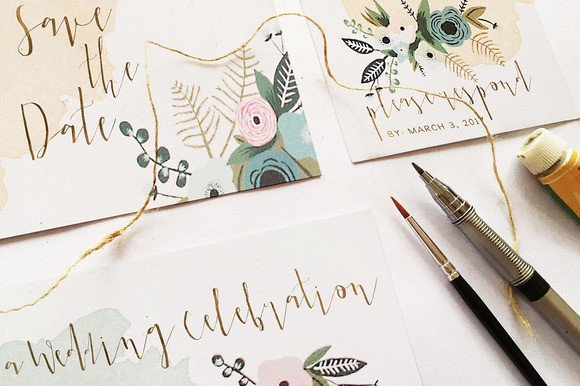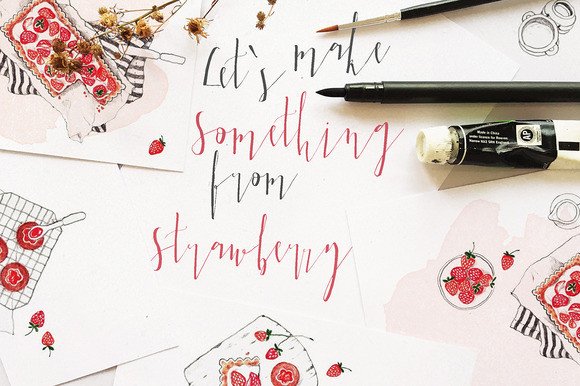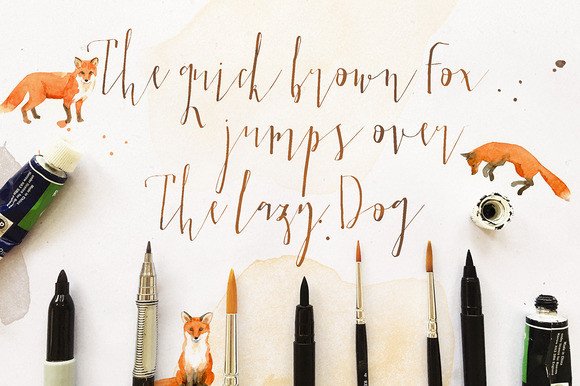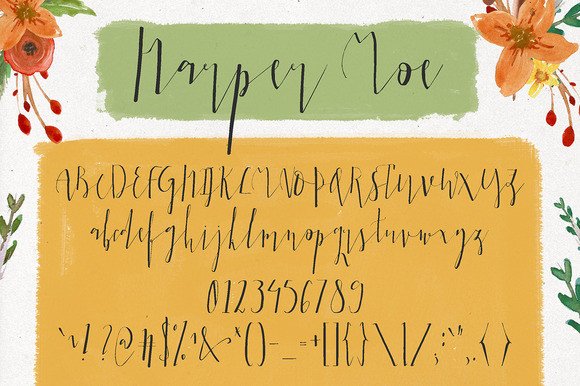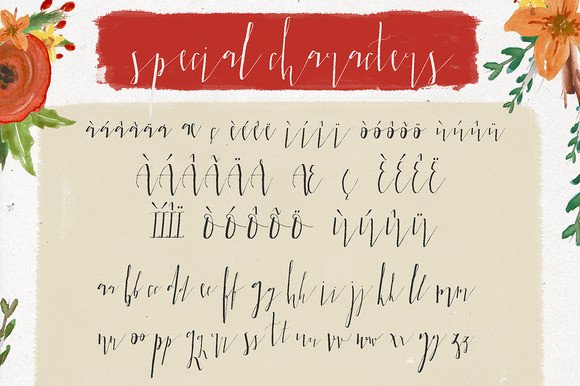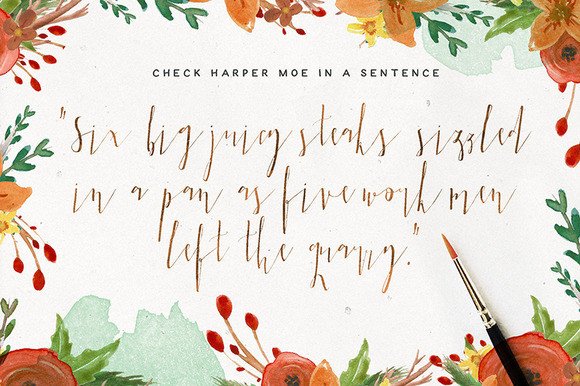
Introducing Harper Moe Font: The Perfect Addition to Your Design Arsenal
Are you a designer or crafter looking for a unique and elegant font to elevate your creative projects? Look no further than Harper Moe Font, a beautiful feminine script font that is sure to capture the hearts of anyone who lays eyes on it. In this article, we’ll dive into the world of Harper Moe Font, exploring its features, uses, and benefits, and why it’s a must-have for any designer or crafter.
What is Harper Moe Font?
Harper Moe Font is a stunning feminine script font created using a thin pen and brush. Its delicate and elegant strokes give it a charming and sophisticated feel, making it perfect for a variety of design projects. Whether you’re looking to add a touch of whimsy to your wedding cards and invites, create a beautiful signature for your design, or craft a unique logo, Harper Moe Font is the perfect choice.
Key Features of Harper Moe Font
So, what makes Harper Moe Font so special? Here are just a few of its key features:
- Feminine script font: Harper Moe Font is a beautiful, flowing script font that exudes femininity and elegance.
- Thin pen and brush creation: The font’s delicate strokes were created using a thin pen and brush, giving it a unique and charming feel.
- Accented glyphs: Harper Moe Font comes with accented glyphs, allowing you to add a touch of sophistication to your designs.
- Ligature feature: The font also features a ligature feature, which enables you to create beautiful, flowing connections between letters.
Uses for Harper Moe Font
So, what can you use Harper Moe Font for? The possibilities are endless! Here are just a few ideas to get you started:
- Wedding cards and invites: Add a touch of elegance to your wedding stationery with Harper Moe Font.
- Birthday cards and greeting cards: Create beautiful, personalized cards for any occasion.
- Signatures and logos: Use Harper Moe Font as a signature for your design or as a logo for your business.
- Return addresses: Add a touch of whimsy to your return addresses with Harper Moe Font.
Benefits of Using Harper Moe Font
So, why should you choose Harper Moe Font for your design projects? Here are just a few benefits:
- Unique and elegant: Harper Moe Font is a one-of-a-kind font that will add a touch of elegance to any design.
- Versatile: The font can be used for a variety of design projects, from wedding cards to logos.
Tips for Using Harper Moe Font
Here are a few tips for getting the most out of Harper Moe Font:
- Experiment with different sizes and colors: Harper Moe Font looks great in a variety of sizes and colors, so don’t be afraid to experiment.
- Pair with other fonts: Try pairing Harper Moe Font with other fonts to create a unique and interesting look.
- Use for digital and print projects: Harper Moe Font can be used for both digital and print projects, making it a versatile addition to your design arsenal.
In conclusion, Harper Moe Font is a beautiful and elegant feminine script font that is perfect for designers and crafters looking to add a touch of whimsy to their design projects. With its delicate strokes, accented glyphs, and ligature feature, Harper Moe Font is a versatile and easy-to-use font that can be used for a variety of projects, from wedding cards and invites to logos and return addresses. So why wait? Download Harper Moe Font today and start creating stunning designs that will capture the hearts of anyone who sees them!